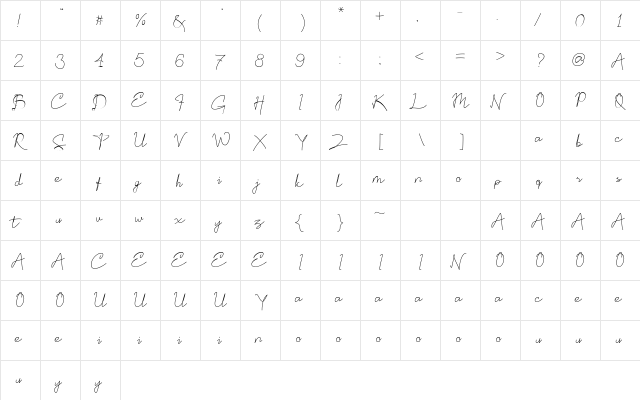
Rogertone Regular
Design Context for Rogertone Typeface
Rogertone is a composed and adaptable typeface that performs quietly and consistently across a wide range of design contexts.
Pro Tip: Use Rogertone in both headline and body roles to test its range before committing to a single application.